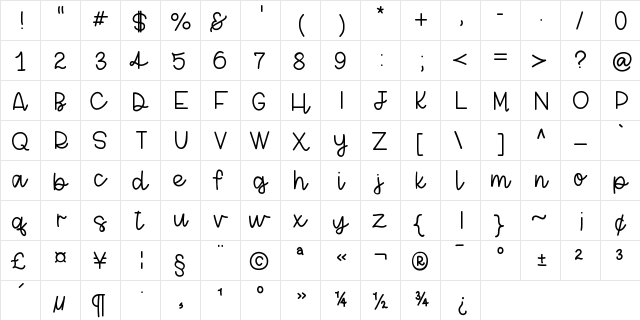
PosterChild Medium
Design Context for PosterChild Typeface
PosterChild has an approachable, lighthearted character — its loose, expressive forms are well-suited to children's content, casual branding, and fun-first design.
Well-suited to food and beverage brands with personality, educational materials, and fun-forward identities.
Font Pairing: Pairs well with a rounded or humanist sans for body copy, maintaining the friendly tone without relying on PosterChild to carry extended reading.
Pro Tip: Use PosterChild at larger display sizes where its expressive character can land. Pair with a clean, simple sans for body copy to maintain readability.